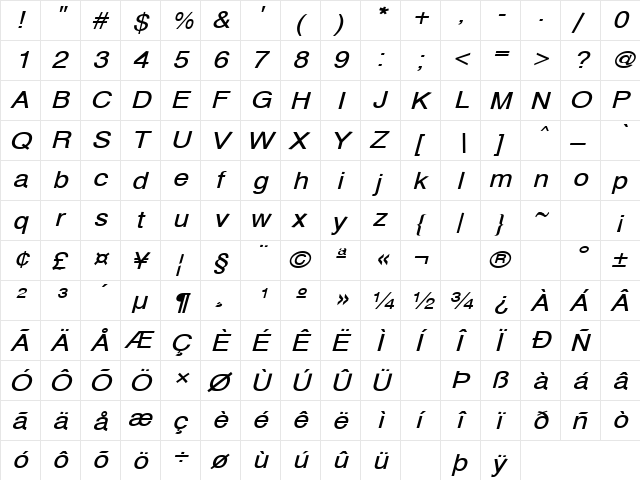
Communication 11 Regular
Design Context for Communication 11 Typeface
Communication 11 takes a measured approach to typography — its balanced proportions and neutral character make it a reliable workhorse for both digital and print work.
Pro Tip: Use Communication 11 in both headline and body roles to test its range before committing to a single application.